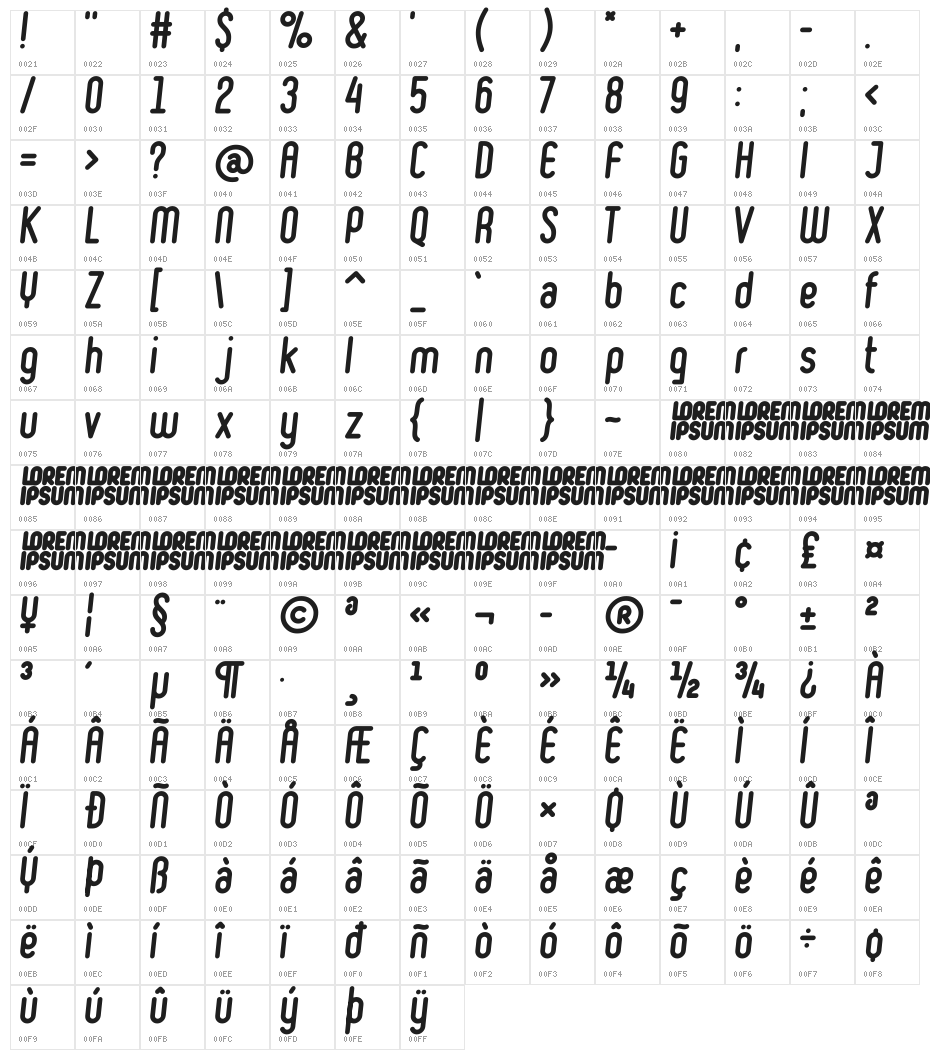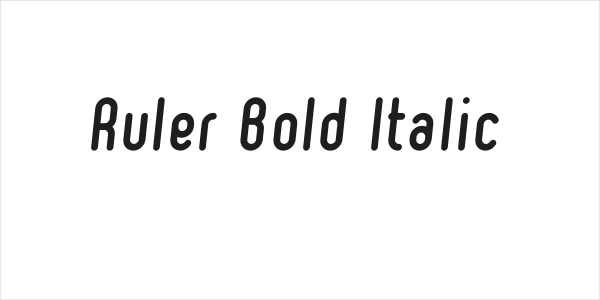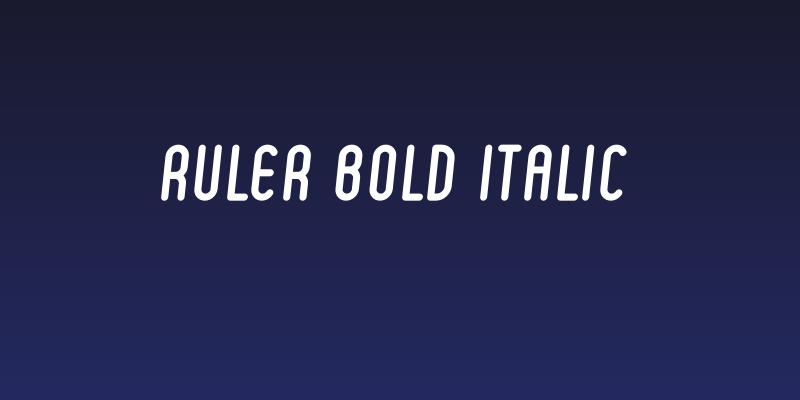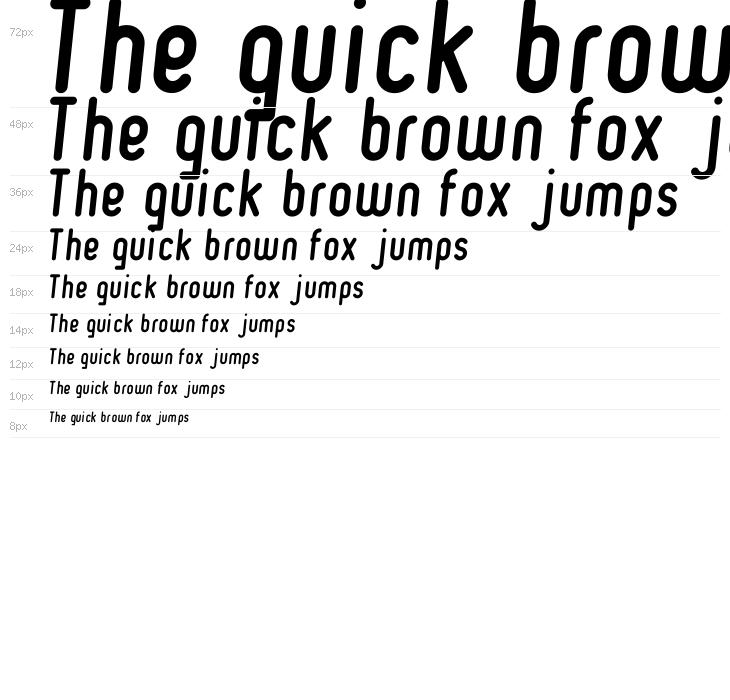
Ruler Bold Italic Font
Ruler Bold Italic Description
This font features a bold and italic style with rounded edges, giving it a modern and approachable appearance. The characters are slightly condensed, which adds a sleek and streamlined look. The uppercase and lowercase letters maintain a consistent height, contributing to a harmonious and balanced design. The numerals are clear and legible, making them suitable for various applications. Special characters are included, enhancing the font's versatility. The overall style is contemporary, making it ideal for projects that require a friendly yet professional touch.